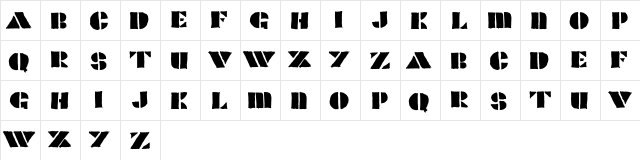
POPCORN billy argel fonts commercial licenses available contact  Regular Font Preview
| Foundry | Billy Argel |
| Designer | Billy Argel |
Design Context for POPCORN billy argel fonts commercial licenses available contact  Typeface
POPCORN billy argel fonts commercial licenses available contact  is a composed and adaptable typeface that performs quietly and consistently across a wide range of design contexts.